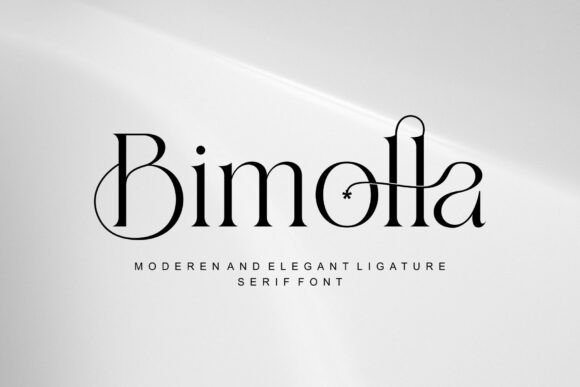
Discover the Essence of Elegance with Bimolla Font
Have you ever stared at a beautifully crafted logo and felt the urge to elevate your design game? For many of us, that moment sparks a creative journey to find the perfect font that captures the essence of luxury and sophistication. Enter Bimolla Font – a refined typeface that embodies the perfect blend of elegance and modern beauty.
Crafted specifically for designers who value timeless sophistication, Bimolla Font is an ideal choice for branding, fashion magazines, packaging, wedding invitations, and high-end logo designs. Its versatility and class make it a valuable asset for any project, whether you’re working on bold headlines or refined body text. With its smooth curves, graceful alternates, and delicate ligatures, Bimolla Font is sure to leave a lasting impression.
Bimolla Font Key Features
- Font Family: Bimolla Font comes in 2 font families – Regular and Bold.
- Character Set: Supports a wide range of characters, including Latin, Cyrillic, and Greek alphabets.
- Resolution: Optimized for high-resolution displays, suitable for use at 300 DPI and above.
- Unique Characteristics: Bimolla Font features a unique blend of modern and vintage elements, with a distinctive geometric shape and elegant curves.
- Size: The font size range is from 8 points to 120 points, making it suitable for various design applications.
Bimolla Font Review
As a designer, I was excited to dive into the Bimolla font and see what it has to offer. Overall, I’m impressed with its unique style and potential for creative applications.
- The Bimolla font has a distinct, playful personality that can add a touch of whimsy to designs.
- The font’s high x-height makes it easy to read, even at smaller sizes.
- The font is well-suited for titles, headings, and short blocks of text.
- The font family includes a range of weights and styles, making it easy to find the perfect fit for your design.
- The Bimolla font may not be the best choice for large blocks of text, as it can become overwhelming.
- The font’s unique style may not be to everyone’s taste, and some users may find it too quirky or distracting.
- The font’s performance in smaller sizes can be inconsistent, with some characters appearing slightly distorted.
Overall, the Bimolla font is a solid addition to any designer’s toolkit, offering a unique and playful style that can add creativity to designs. While it may have some limitations, it’s definitely worth considering for projects where a touch of whimsy is needed.
The Bimolla Font is a beautiful, modern script font that is perfect for creating elegant and sophisticated designs. Some common use cases include:
- Wedding and event signage
- Special occasion cards and gifts
The Bimolla Font is a popular, modern sans-serif font known for its clean and elegant look. However, designers may need alternatives for specific projects or designs. Here are a few options.
Open Sans is a popular sans-serif font that is highly legible and versatile. It is great for body text, headlines, and even logos. Open Sans is a great alternative to Bimolla Font when you need a font that is easy to read and works well in various digital platforms.
Comparison: While both fonts are modern and clean, Open Sans has a more neutral tone and is more suitable for digital use. Bimolla Font has a slightly more elegant and sophisticated look.
Montserrat is a sans-serif font that originated from a sign in a Buenos Aires neighborhood. It is known for its geometric and urban feel. Montserrat is a great alternative to Bimolla Font when you need a font that conveys a sense of modernity and urbanity.
Comparison: While both fonts are modern and geometric, Montserrat has a more urban and gritty feel compared to Bimolla Font’s clean and elegant look.
Lato is a sans-serif font that is highly legible and versatile. It is great for body text, headlines, and even logos. Lato is a great alternative to Bimolla Font when you need a font that is easy to read and works well in various digital platforms.